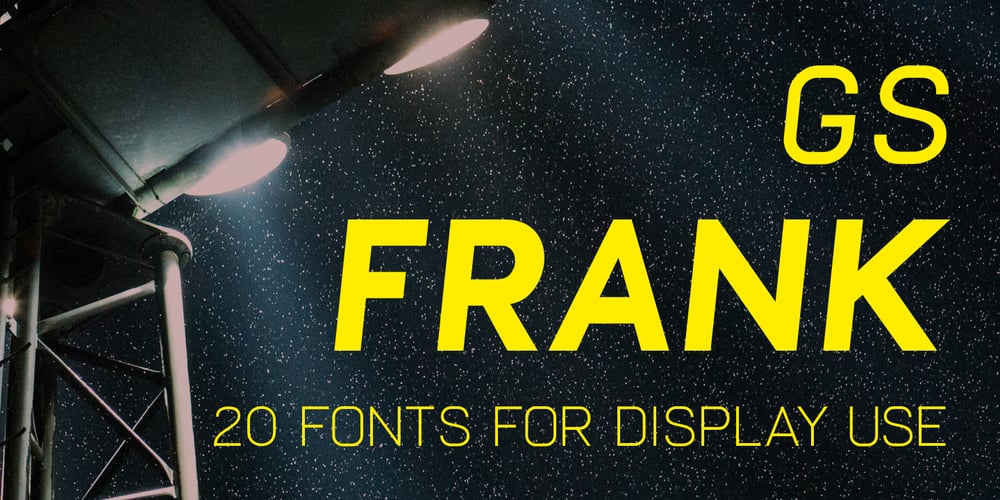
GS Frank Font Family was designed by Daniel Feldt and published by Great Scott. GS Frank contains 20 styles and family package options. GS Frank is an uppercase display typeface inspired by the classics DIN, Eurostile and a dash of Futura. Perfect for prints, t-shirts, posters and such. Supports Basic, Western European, Central European and South Eastern European latin characters.